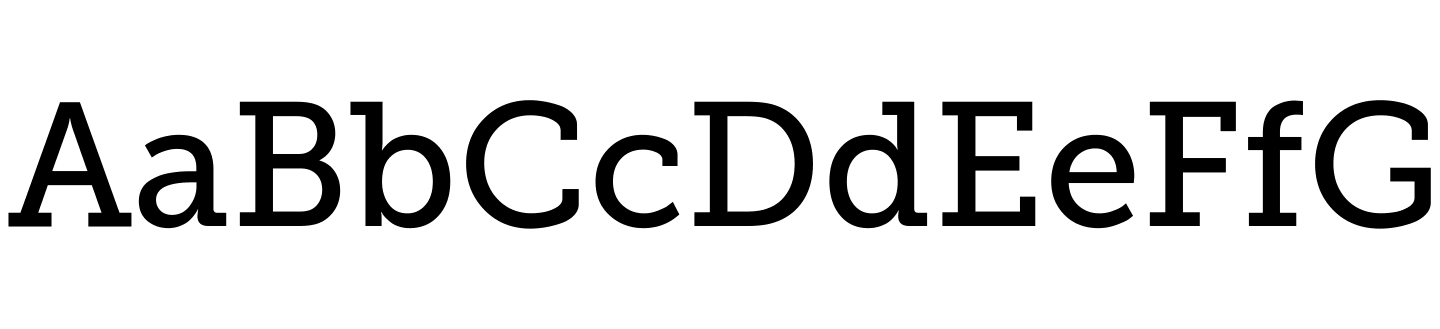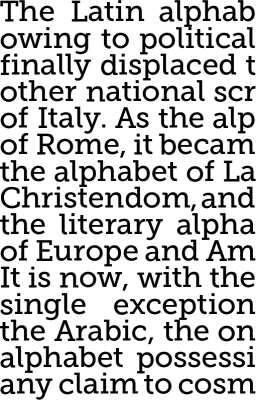
15+ Museo Slab Serif Font Free Creativefabrica. Fontsfree.pro » basic web fonts » slab serif fonts » museo slab. The font is available in all formats (museo slab woff2, museo slab woff, museo slab ttf, museo slab eot) and applicable to the website, photoshop and any os. Nov 26, 2015 by free fonts. Museo slab is robust slab serif with museo's friendliness. It is a perfect match for museo sans. When museo became a succes the author researched some possibilities of other versions. 2009museo slab 500 italicversion 1. Add in the stylesheet file: Along with other serifs, buivenga has not only managed to enhance the specific mother nature of the serif font, but has as a result supplied museo slab a far more formal and austere kind in comparison with that of museo. December 12, 2018 by editorial leave a comment. Download 3 formats oet, ttf, woff. This typeface has twelve styles and was published by exljbris font foundry. Install the font on your site. Museo slab is a slab serif font that supports a very wide range in languages and is a complete opentype typeface. Museo slab is a slab serif font family.
Museo Slab Font Free Download Fonts. Museo slab is robust slab serif with museo's friendliness. The font is available in all formats (museo slab woff2, museo slab woff, museo slab ttf, museo slab eot) and applicable to the website, photoshop and any os. Museo slab is a slab serif font family. Along with other serifs, buivenga has not only managed to enhance the specific mother nature of the serif font, but has as a result supplied museo slab a far more formal and austere kind in comparison with that of museo. Install the font on your site. 2009museo slab 500 italicversion 1. This typeface has twelve styles and was published by exljbris font foundry. It is a perfect match for museo sans. December 12, 2018 by editorial leave a comment. Fontsfree.pro » basic web fonts » slab serif fonts » museo slab. Museo slab is a slab serif font that supports a very wide range in languages and is a complete opentype typeface. When museo became a succes the author researched some possibilities of other versions. Add in the stylesheet file: Nov 26, 2015 by free fonts. Download 3 formats oet, ttf, woff.
Copyright (c) 2009 by jos buivenga. Designed by jos buivenga, the museo slab font family is a perfect match for museo sans. Display all fonts display free fonts display commercial fonts. Museo slab can be purchased as a desktop and a web by exljbris font foundry. Along with other serifs, buivenga has not only managed to enhance the specific mother nature of the serif font, but has as a result supplied museo slab a far more formal and austere kind in comparison with that of museo. Museo sans font family designed by exljbris font foundry. When museo became a succes i researched some possibilities of other versions.
Similar Free Fonts And Alternative For Museo Slab 700. Along with other serifs, buivenga has not only managed to enhance the specific mother nature of the serif font, but has as a result supplied museo slab a far more formal and austere kind in comparison with that of museo. 2009museo slab 500 italicversion 1. December 12, 2018 by editorial leave a comment. Museo slab is a slab serif font family. The font is available in all formats (museo slab woff2, museo slab woff, museo slab ttf, museo slab eot) and applicable to the website, photoshop and any os. This typeface has twelve styles and was published by exljbris font foundry. Nov 26, 2015 by free fonts. When museo became a succes the author researched some possibilities of other versions. Install the font on your site. Fontsfree.pro » basic web fonts » slab serif fonts » museo slab. Museo slab is a slab serif font that supports a very wide range in languages and is a complete opentype typeface. Download 3 formats oet, ttf, woff. Add in the stylesheet file: It is a perfect match for museo sans. Museo slab is robust slab serif with museo's friendliness.
The Best 17 Free Slab Serif Fonts Hipsthetic. 2009museo slab 500 italicversion 1. Install the font on your site. Museo slab is a slab serif font family. When museo became a succes the author researched some possibilities of other versions. Nov 26, 2015 by free fonts. Fontsfree.pro » basic web fonts » slab serif fonts » museo slab. Along with other serifs, buivenga has not only managed to enhance the specific mother nature of the serif font, but has as a result supplied museo slab a far more formal and austere kind in comparison with that of museo. Download 3 formats oet, ttf, woff. Museo slab is robust slab serif with museo's friendliness. Add in the stylesheet file: It is a perfect match for museo sans. The font is available in all formats (museo slab woff2, museo slab woff, museo slab ttf, museo slab eot) and applicable to the website, photoshop and any os. Museo slab is a slab serif font that supports a very wide range in languages and is a complete opentype typeface. December 12, 2018 by editorial leave a comment. This typeface has twelve styles and was published by exljbris font foundry.
Museo Slab Font Combinations Free Alternatives Typewolf. The font is available in all formats (museo slab woff2, museo slab woff, museo slab ttf, museo slab eot) and applicable to the website, photoshop and any os. Museo slab is a slab serif font that supports a very wide range in languages and is a complete opentype typeface. Museo slab is a slab serif font family. It is a perfect match for museo sans. Nov 26, 2015 by free fonts. Download 3 formats oet, ttf, woff. Along with other serifs, buivenga has not only managed to enhance the specific mother nature of the serif font, but has as a result supplied museo slab a far more formal and austere kind in comparison with that of museo. December 12, 2018 by editorial leave a comment. Fontsfree.pro » basic web fonts » slab serif fonts » museo slab. Install the font on your site. 2009museo slab 500 italicversion 1. When museo became a succes the author researched some possibilities of other versions. Add in the stylesheet file: Museo slab is robust slab serif with museo's friendliness. This typeface has twelve styles and was published by exljbris font foundry.
Museo Slab Font Free Dafont Free. Nov 26, 2015 by free fonts. This typeface has twelve styles and was published by exljbris font foundry. Museo slab is robust slab serif with museo's friendliness. Museo slab is a slab serif font family. Fontsfree.pro » basic web fonts » slab serif fonts » museo slab. Museo slab is a slab serif font that supports a very wide range in languages and is a complete opentype typeface. Add in the stylesheet file: December 12, 2018 by editorial leave a comment. Download 3 formats oet, ttf, woff. 2009museo slab 500 italicversion 1. Along with other serifs, buivenga has not only managed to enhance the specific mother nature of the serif font, but has as a result supplied museo slab a far more formal and austere kind in comparison with that of museo. Install the font on your site. When museo became a succes the author researched some possibilities of other versions. It is a perfect match for museo sans. The font is available in all formats (museo slab woff2, museo slab woff, museo slab ttf, museo slab eot) and applicable to the website, photoshop and any os.
Museo slab 300 copyright (c) 2009 by jos buivenga.
Similar Free Fonts And Alternative For Museo Slab 700. It is a perfect match for museo sans. Fontsfree.pro » basic web fonts » slab serif fonts » museo slab. Nov 26, 2015 by free fonts. Add in the stylesheet file: Download 3 formats oet, ttf, woff. Museo slab is a slab serif font that supports a very wide range in languages and is a complete opentype typeface. December 12, 2018 by editorial leave a comment. When museo became a succes the author researched some possibilities of other versions. The font is available in all formats (museo slab woff2, museo slab woff, museo slab ttf, museo slab eot) and applicable to the website, photoshop and any os. Museo slab is a slab serif font family. Along with other serifs, buivenga has not only managed to enhance the specific mother nature of the serif font, but has as a result supplied museo slab a far more formal and austere kind in comparison with that of museo. Museo slab is robust slab serif with museo's friendliness. 2009museo slab 500 italicversion 1. This typeface has twelve styles and was published by exljbris font foundry. Install the font on your site.
Download museo slab 500 font with 500 style. Version 1.000 postscript font name: Display all fonts display free fonts display commercial fonts. Museo slab is a slab serif font family. Text, geometric, slab serif, web. When museo became a succes i researched some possibilities of other versions. Museo slab is the slab serif version of the well known museo font family. English, french, german, italian, maltese, polish, turkish. Museo slab is a serif font. Museo slab font subfamily identification: